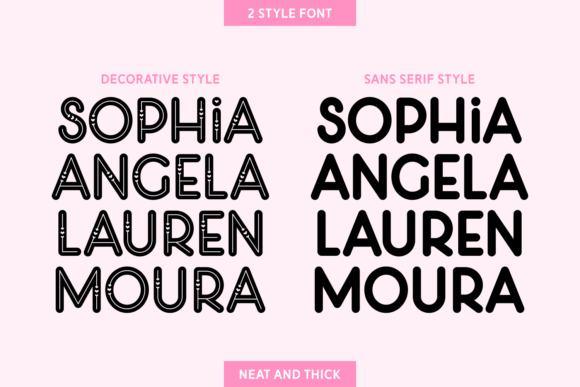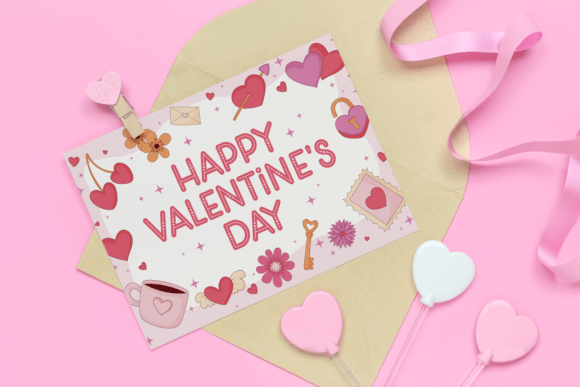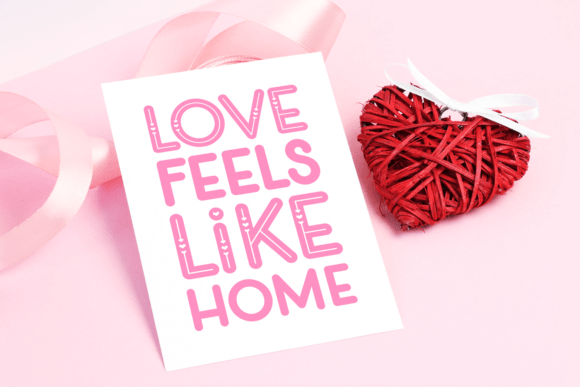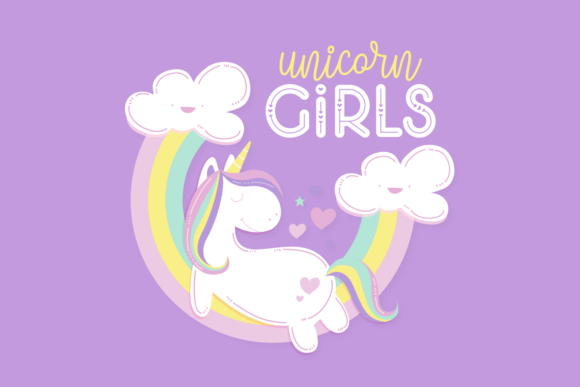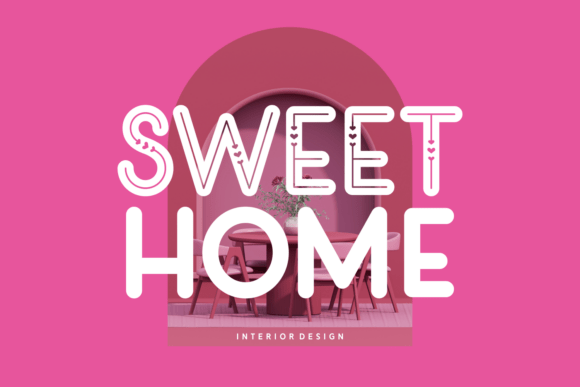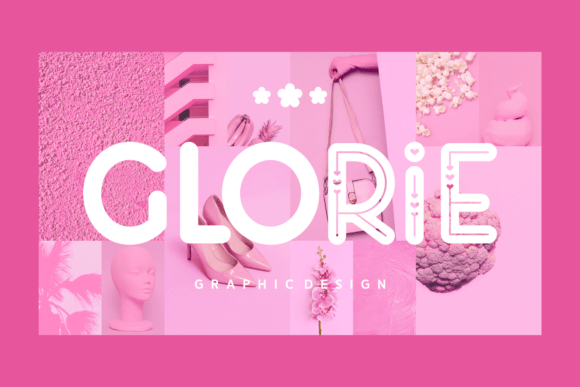
Introduction to Huge Love Font
“Bask in the charm and vivacity of the “Huge Love” typeface.
This display font effortlessly combines elements of decorative and sans serif fonts, creating a versatile and robust design tool Perfect for celebrating occasions like Valentine’s Day, birthdays, or weddings, the “Huge Love” font encapsulates romance, playfulness, and free-spirited energy in every curve and line.
Key Features of Huge Love Font
Why Choose Huge Love Font?
Huge Love Font offers exceptional quality and versatility, making it a valuable addition to your design toolkit. Whether you’re creating for personal projects or commercial use, Huge Love Font delivers professional results.